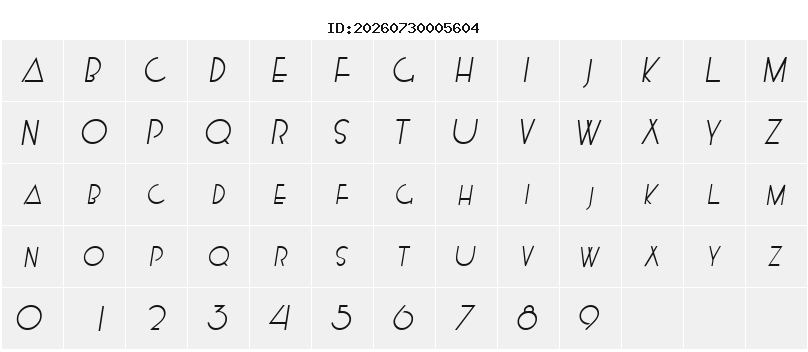
KendraSCapsSSK Preview
• Font Name: KendraSCapsSSK
• Font ID: Macromedia Fontographer 4.1 KendraSCapsSSK Italic
• Full Font Name: KendraSCapsSSK Italic
• Version: Macromedia Fontographer 4.1 8/3/95
• PostScript Name: KendraSCapsSSKItalic
• Character Count: 201
About KendraSCapsSSK.ttf
KendraSCapsSSK.ttf is a modern, elegant sans-serif font designed for ultimate readability and visual harmony. Perfect for branding, headlines, web design, and print materials.